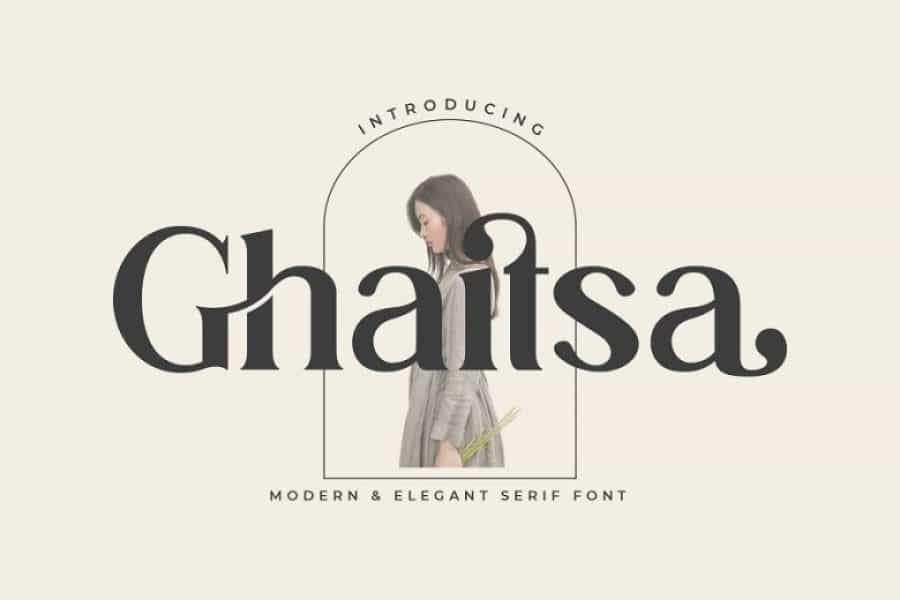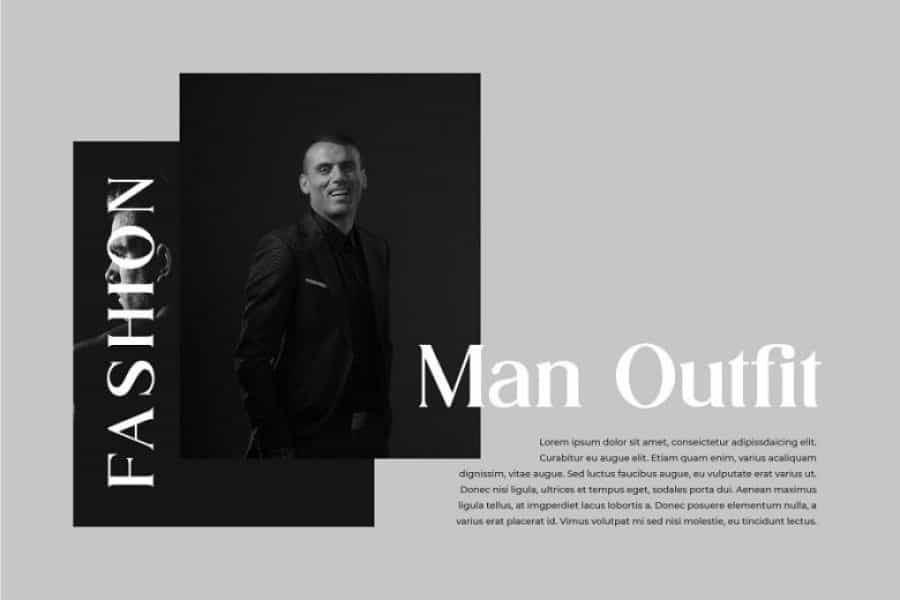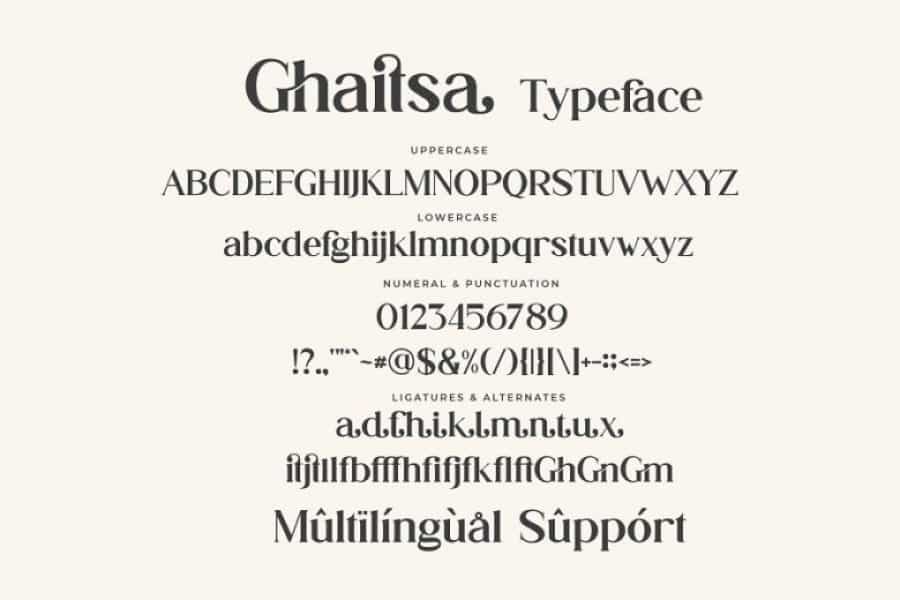
Ghaitsa is an elegant serif font suitable for modern products like handcrafts, product packaging quotes, product designs, craftsmen lanels and photography. Adobe Indesign CS IIustrator Adobe Photoshop CC and Corel Draw can access any file type.